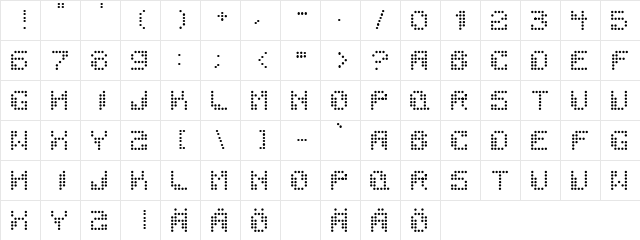
Dotchaos Regular
Design Context for Dotchaos Typeface
Dotchaos celebrates the constraints of early digital type, turning pixel geometry into a distinctive and immediately recognisable style.
A natural choice for retro game titles, chiptune music branding, 8-bit UI, and digital nostalgia projects.
Pro Tip: Pair Dotchaos with flat colour palettes and simple geometric UI elements to reinforce its digital aesthetic.